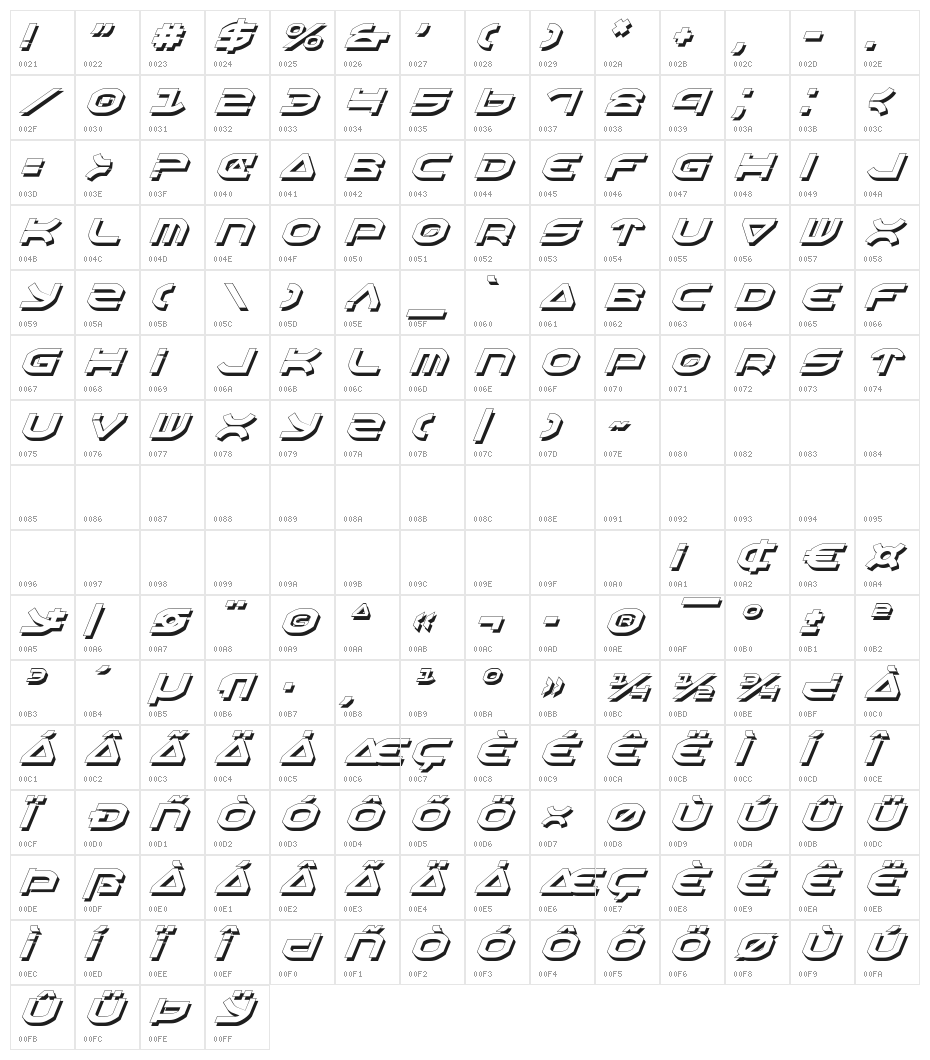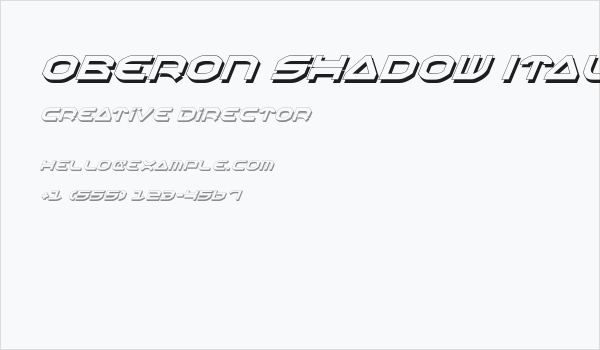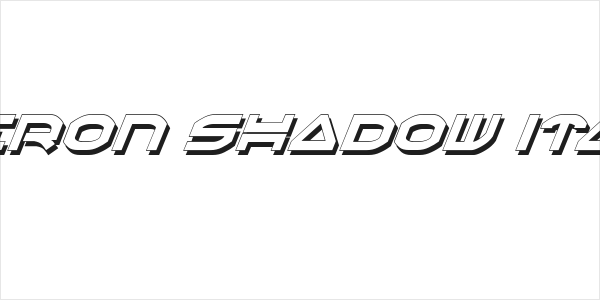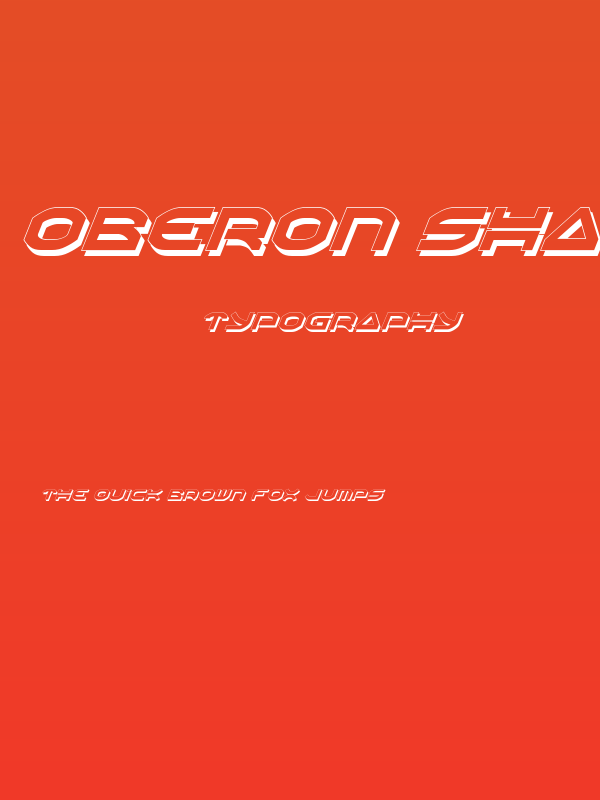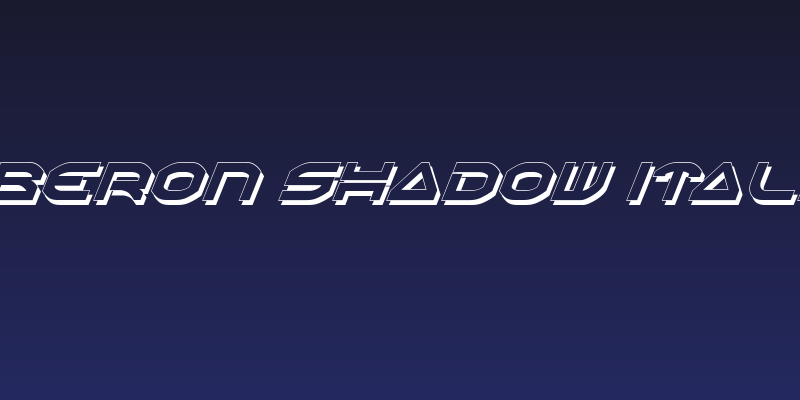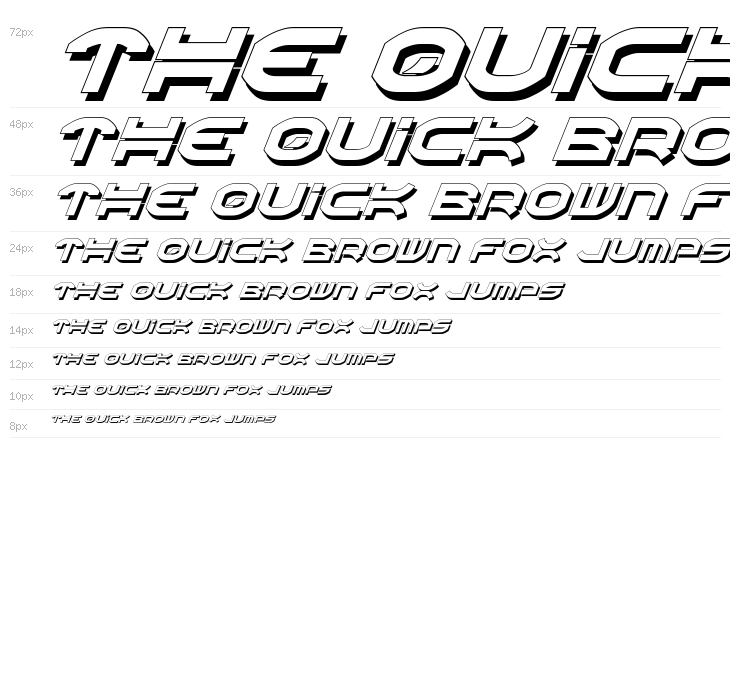
Oberon Shadow Italic Font
Oberon Shadow Italic Description
This font features a bold, futuristic design with a distinct shadow effect that gives it a three-dimensional appearance. The characters are italicized, adding a dynamic and forward-leaning aspect to the text. Each letter is crafted with sharp angles and clean lines, creating a sense of movement and energy. The shadow is consistently applied, enhancing the depth and making the text stand out against any background. This style is particularly eye-catching and suitable for projects that require a modern and impactful look.
| Proposed Projects | Ideal for sci-fi themed designs, video game titles, posters, and branding that requires a modern and dynamic appearance. |